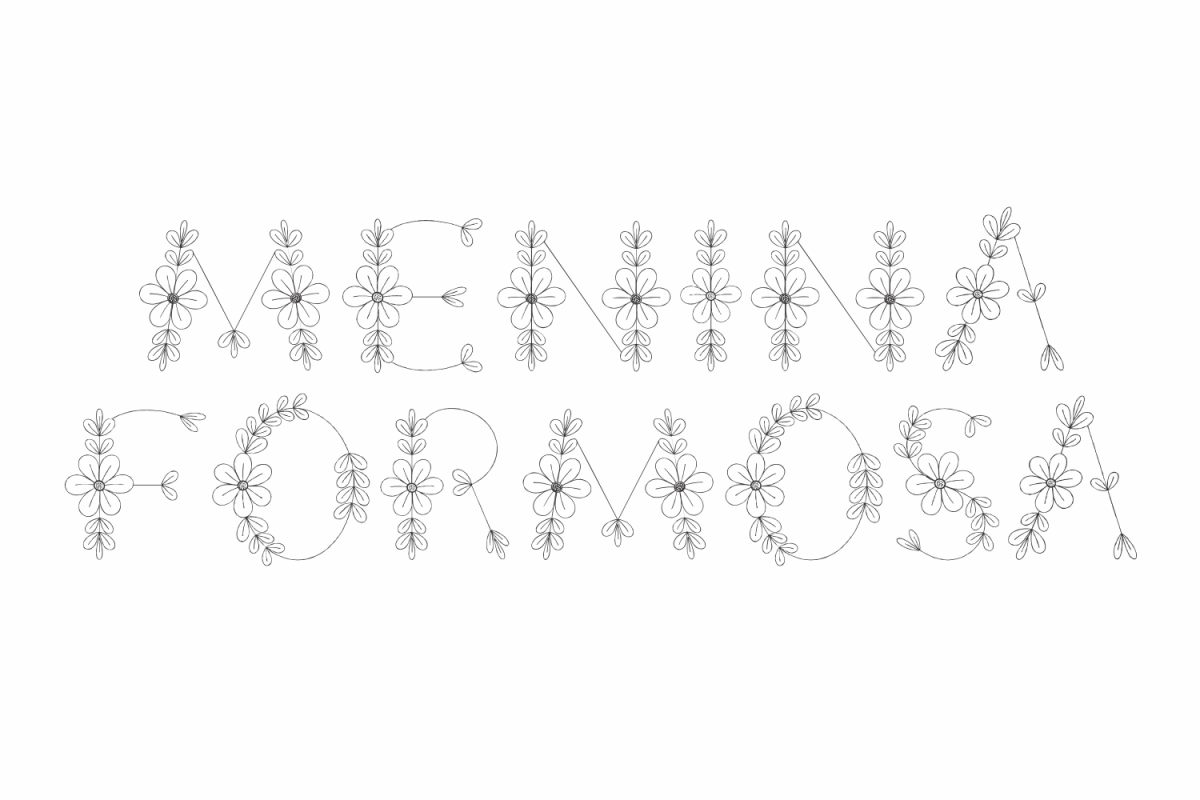
Menina Formosa
Meninas are the new comprehensive collection of innovative craft alphabets researched in rare cross-stitch booklets from 1850 to 1930. This alphabet series was entirely designed by hand, without use of auto-tracing, by Iza W, from Intellecta Design. Keep your eyes wide-open, because we will launch more amazing alphabets in this collection.
“Menina” means “Girl” in Portuguese. Menina Formosa is a Gracious Girl.